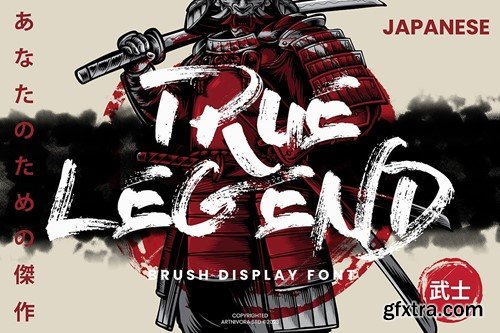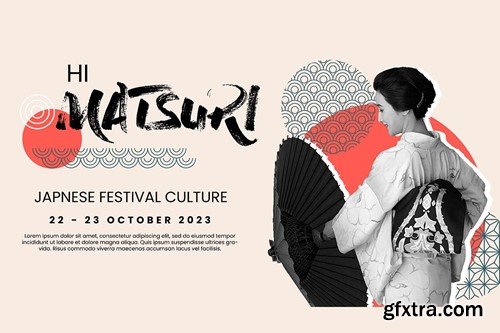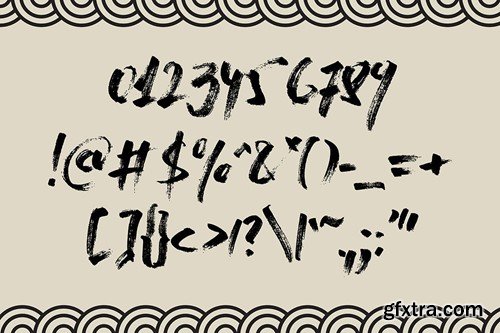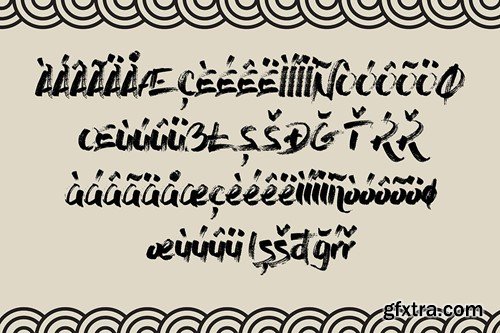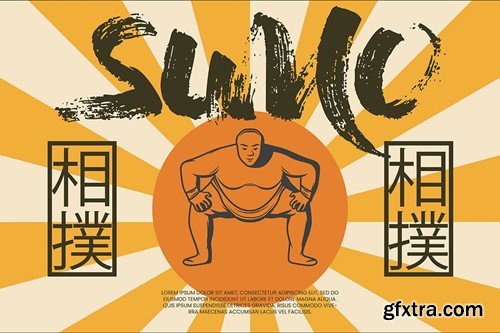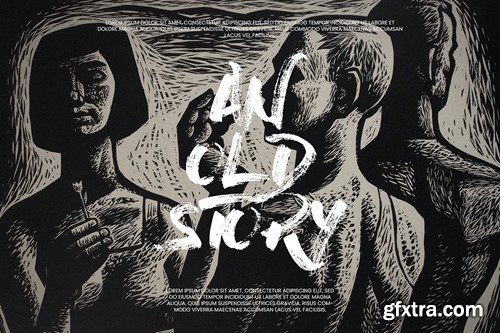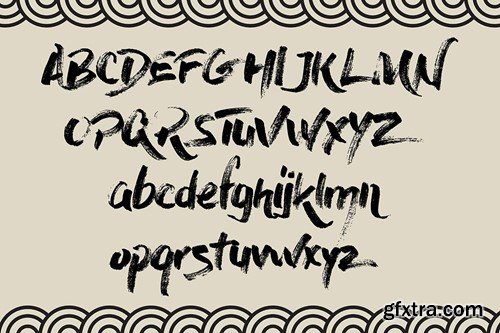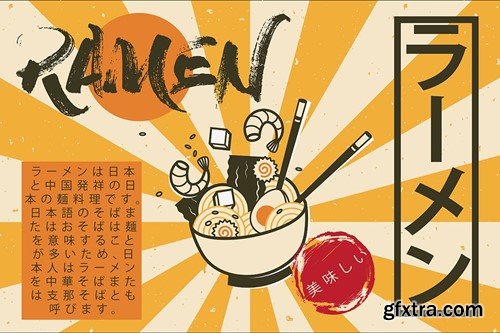
真 legend - 研磨显示字体 HQMDUXU
True Legend - Brush Display Font HQMDUXU
True Legend - Brush Display Font
Introducing True Legend, a simple and brush display font. So perfect for you who needs a typeface for logo designs, magazine, social media, brochure, and many more.
Features
• Uppercase
• Lowercase
• Punctuation
• Numerals
• Multilingual Support